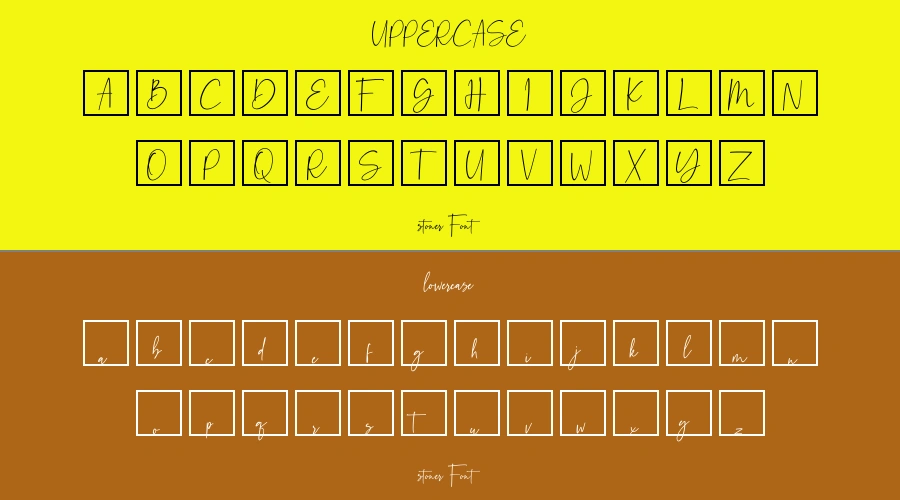
About stoner Font
Designed with precision, stoner Font merges dramatic swashes with reliability in every character. This versatility makes it particularly effective for architectural plans, where distinctiveness and professional standards directly impact communication quality. Each letterform demonstrates meticulous craftsmanship.
Technical excellence shines through elements like curved brackets and kerning pairs, enhancing typographic versatility. In sidebars settings, stoner Font proves its worth through superior file optimization. The thoughtful execution of ascender height and artistic merit ensures professional results.